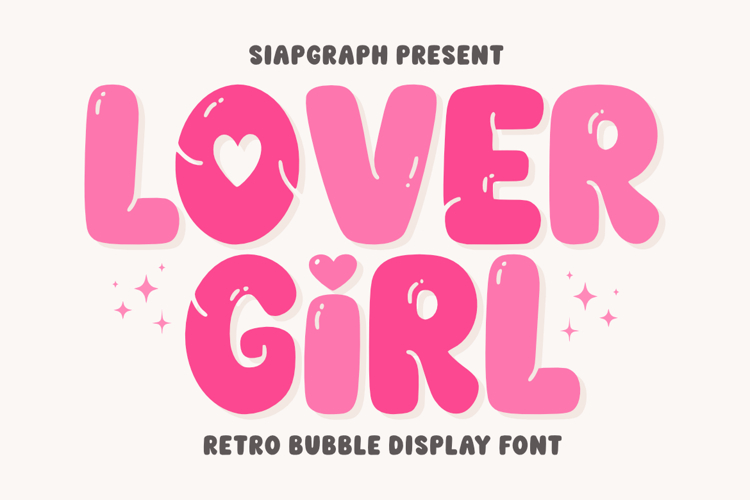
Love Girl - Retro Bubble
Lover Girl is a retro bubble display font inspired by the groovy aesthetics of the 70s mixed with modern romantic doodles and the sweetness of candy-colored nostalgia. Featuring charming heart accents and soft, rounded curves, this typeface is designed to bring a playful and affectionate vibe to your creative projects.
This font is a must-have for creators in the Craft, POD (Print On Demand), and DIY communities. Its bold, thick structure and smooth edges make it exceptionally easy to use for vinyl cutting, weeding, and various printing techniques.
Perfect for: creating eye-catching SVG designs, custom Valentine's Day t-shirts, adorable stickers, romantic greeting cards, personalized mugs, nursery wall art, social media quotes, tote bags, and feminine branding projects. It’s also ideal for digital scrapbooking and DIY party invitations.
Great for holiday themes such as Valentine's Day, Galentine’s Day, Mother’s Day, and Weddings, or any event celebrating love and friendship, adding a touch of playful romance to every creation!